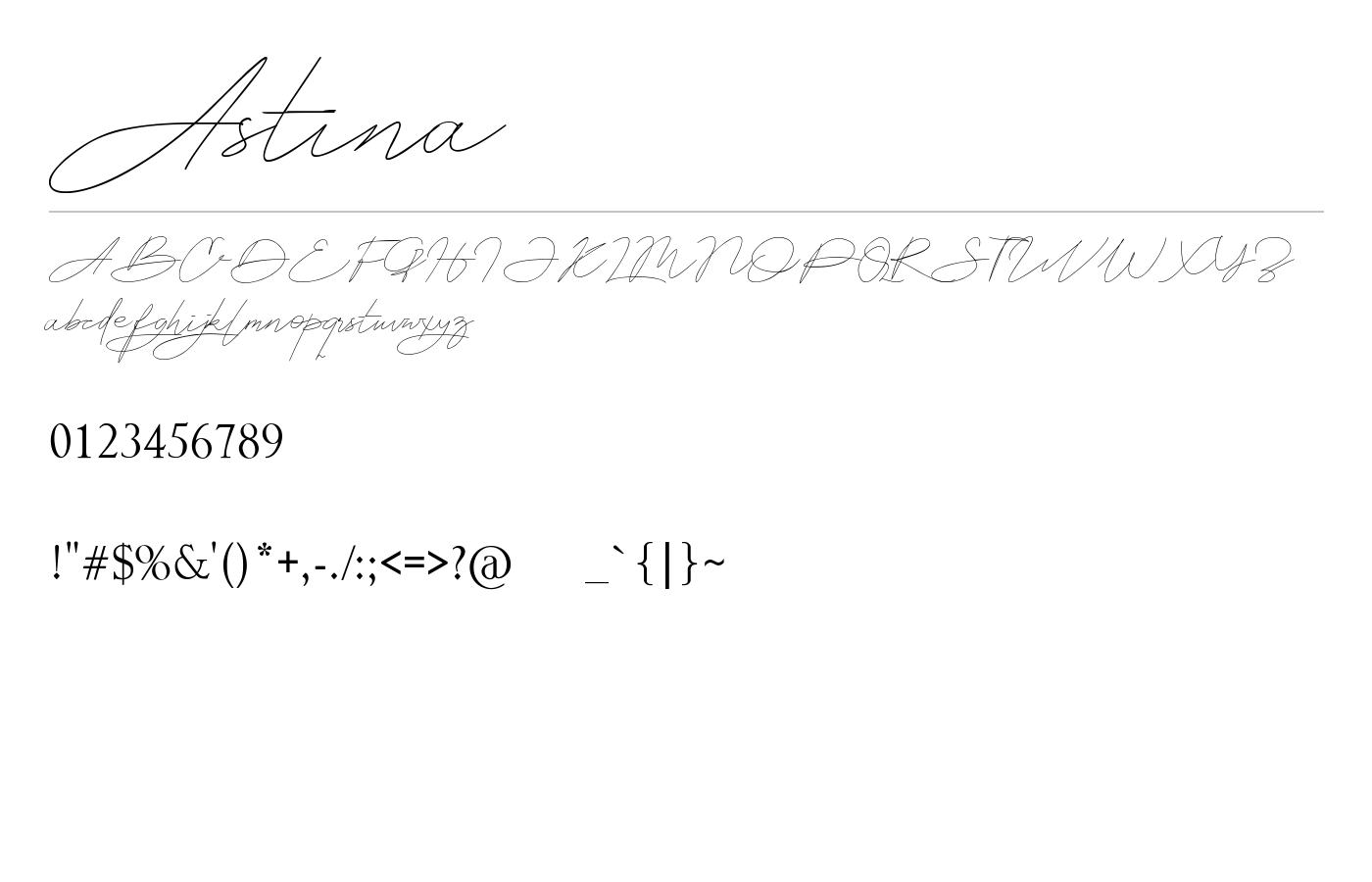
Astina is a delicate, elegant script font characterized by its thin, flowing lines and graceful loops, giving it a refined, handwritten feel. Its slender strokes and high contrast make it ideal for luxury branding, wedding invitations, and sophisticated editorial designs where a touch of elegance and personal charm is desired. This font works best in large sizes or headings, adding a stylish and airy aesthetic without overwhelming the design.
Astina Font